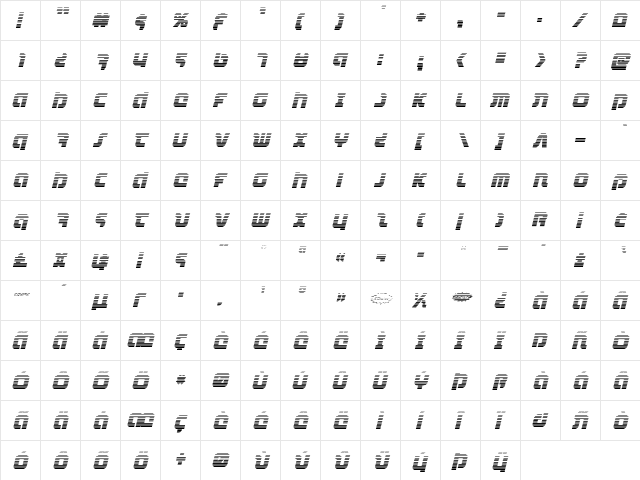
Combat Droid Gradient Italic Italic
Design Context for Combat Droid Gradient Italic Typeface
Combat Droid Gradient Italic draws on military and industrial lettering traditions, with forms that communicate strength and precision. The slanted form adds forward momentum and visual energy.
A strong choice for security brands, outdoor gear, and high-stakes visual communication.
Pro Tip: Try Combat Droid Gradient Italic in all-caps for the most authentic military signage feel. It pairs well with stark, minimal layouts and muted colour palettes.